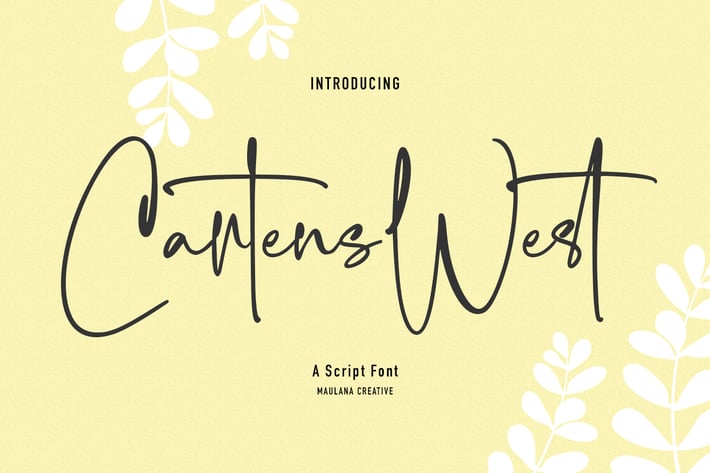
Cartens West Script Font
Cartens West is an ink'ish casual modern signature script font. With light contrast stroke, fun character with a bit of ligatures and alternates. To give you an extra creative work. Cartens West font support multilingual more than 100+ language. This font is good for logo design, Social media, Movie Titles, Books Titles, a short text even a long text letter and good for your secondary text font with sans or serif. Make a stunning work with Cartens West font.